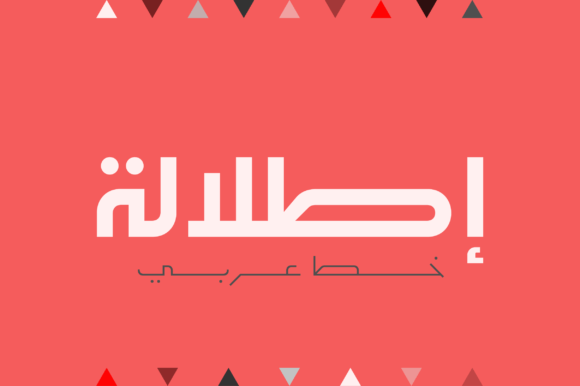
Journey into the realm of exquisite typography with Etlalah Font, a visual masterpiece that captures the essence of modernity and simplicity, perfectly harmonized with the rich heritage of Arabic script. Designed by the visionary artist, Mostafa El Abasiry, Etlalah is not just a font; it's an experience that redefines the boundaries of creative expression.
Immerse yourself in the world of Etlalah, where each meticulously crafted letterform dances with elegance and poise, effortlessly conveying messages with a touch of sophistication. Whether you're crafting captivating brand identities, designing eye-catching advertisements, or creating engaging web experiences, Etlalah Font is the ultimate tool to transform your creative visions into tangible masterpieces.
With its versatility and adaptability, Etlalah Font seamlessly adapts to a myriad of design applications. Its inherent beauty shines through in typographic compositions, adding a touch of brilliance to every word and phrase. Let your creativity soar as you explore the endless possibilities that Etlalah Font presents, elevating your designs to new heights of visual appeal.
Unleash the power of Etlalah Font and witness the transformation of your creative endeavors. Its captivating essence will leave an indelible mark on your audience, ensuring that your messages resonate with impact and leave a lasting impression.
Embrace the allure of Etlalah Font and unlock a world of boundless creativity, where your imagination knows no limits. Its user-friendly interface and intuitive features make it accessible to designers of all skill levels, empowering you to create stunning designs with effortless ease.
Join the growing community of designers who have discovered the transformative power of Etlalah Font. Let your creativity flourish and embark on a journey of visual storytelling that will captivate and inspire.